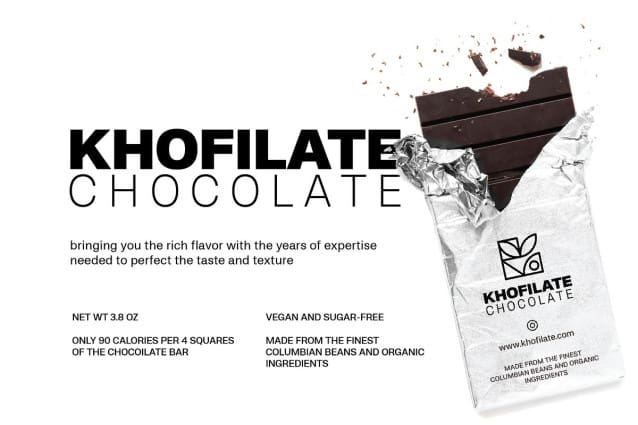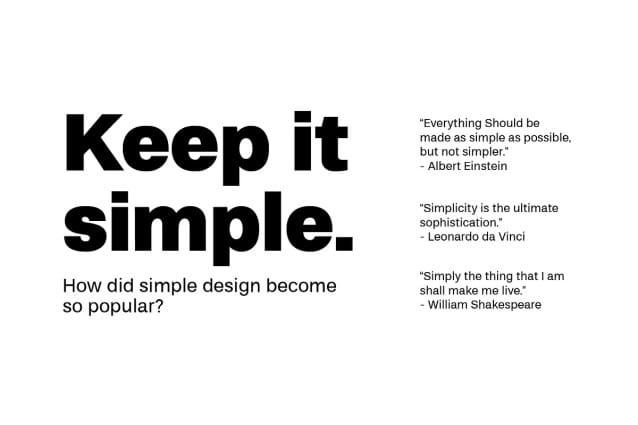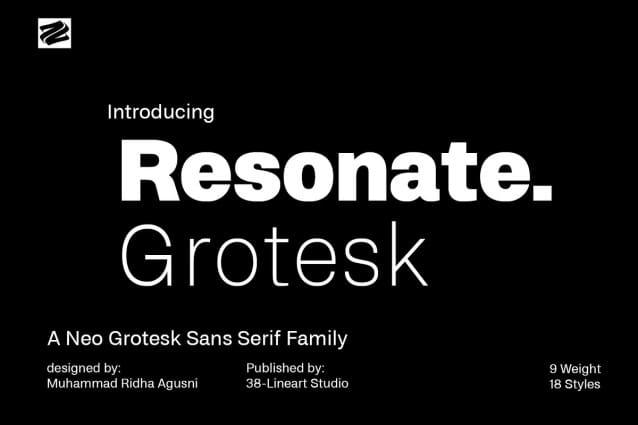
Resonate Grotesk Font
Resonate Grotesk Font a versatile neo-grotesk typeface that seamlessly blends modernity with timeless elegance, perfect for editorial, corporate, and advertising projects. With meticulous attention to detail, Resonate offers a comprehensive range of weights and styles, ensuring precise communication of various moods and messages. Its clean lines and subtle character exude professionalism, while its adaptability allows for seamless integration across diverse design applications. From corporate branding to editorial layouts, Resonate enhances your vision with contemporary refinement. Designed for both aesthetic appeal and functionality, Resonate guarantees optimal legibility across print and digital platforms, supported by extensive language options and OpenType features. Elevate your designs with Resonate Font Family, empowering you to leave a lasting impression effortlessly.